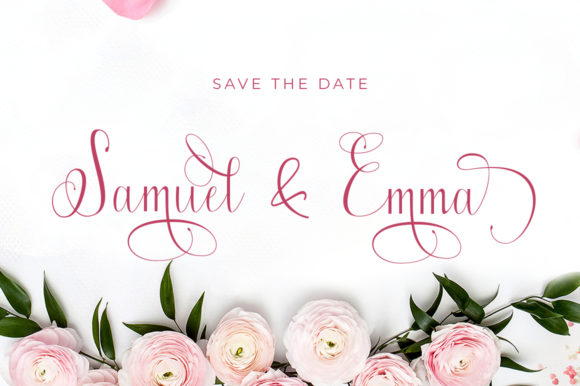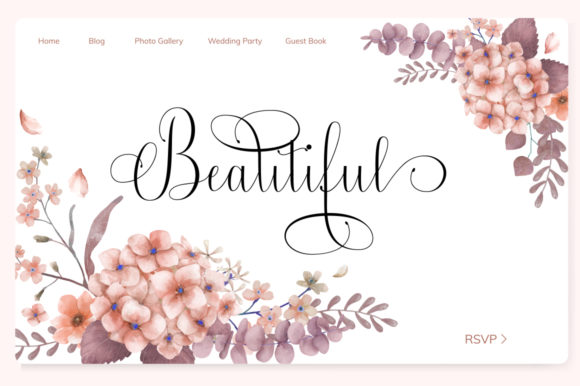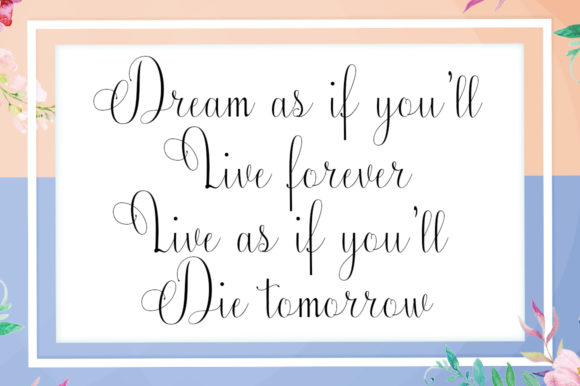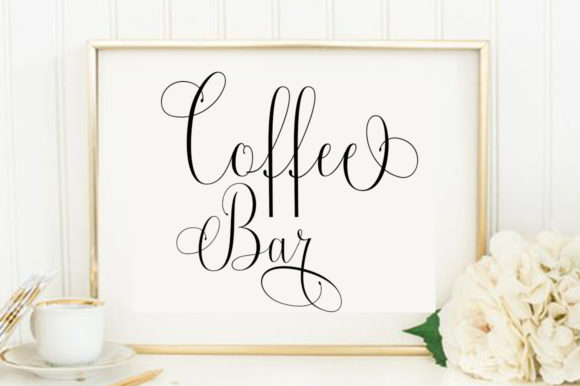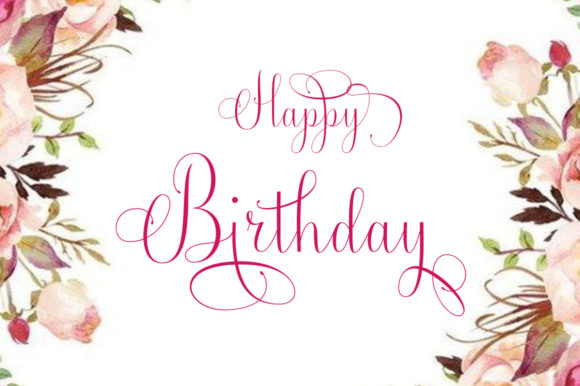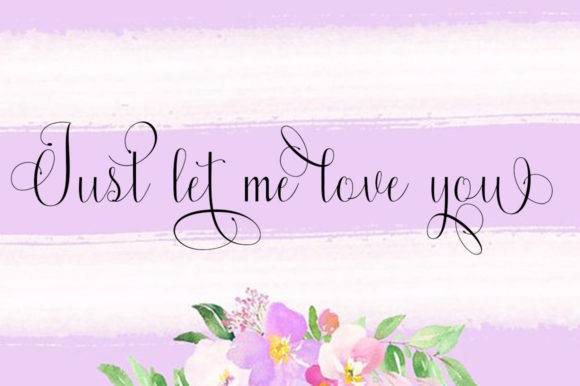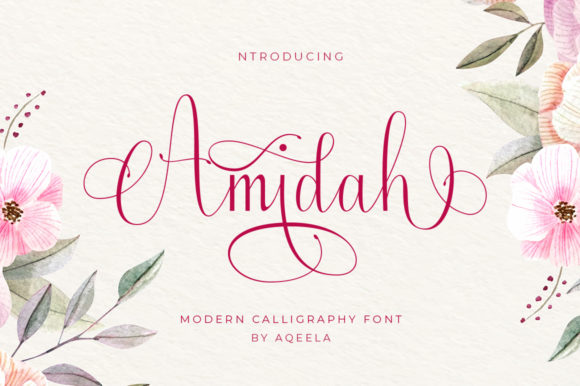
Introducing Amidah Font: The Sweet and Soft Hand-Lettered Calligraphy Font for Your Creative Projects
Are you looking for a font that can add a touch of sweetness and playfulness to your designs? Look no further than Amidah Font, a beautiful hand-lettered calligraphy font that is perfect for creating stunning Valentine’s Day art, wedding invitations, stationery, social media posts, and greeting cards.
What Makes Amidah Font Special?
Amidah Font is a sweet and soft hand-lettered calligraphy font that features playfully rounded characters, giving it a personal and playful feel. The font comes packed with gorgeous PUA encoded swashes, which allow you to add a decorative touch to your designs within seconds. With Amidah Font, you can create beautiful and unique designs that are sure to impress.
Perfect for Valentine’s Day and Wedding Designs
Valentine’s Day and wedding designs require a special touch, and Amidah Font is the perfect choice. The font’s playful and romantic feel makes it ideal for creating stunning Valentine’s Day art, wedding invitations, and stationery. You can use it to create beautiful and unique designs that will make your loved ones feel special.
Key Features of Amidah Font
- Hand-lettered calligraphy font: Amidah Font is a beautifully crafted hand-lettered calligraphy font that features unique and personal characters.
- Playfully rounded characters: The font’s playfully rounded characters give it a sweet and soft feel, making it perfect for creating playful and romantic designs.
- PUA encoded swashes: Amidah Font comes packed with gorgeous PUA encoded swashes, which allow you to add a decorative touch to your designs within seconds.
- Perfect for digital and print designs: Amidah Font is perfect for creating digital and print designs, including social media posts, greeting cards, and stationery.
Use Amidah Font for Your Creative Projects
Amidah Font is a versatile font that can be used for a variety of creative projects, including:
- Wedding invitations: Create beautiful and unique wedding invitations that will make your loved ones feel special.
- Valentine’s Day art: Create stunning Valentine’s Day art that will make your loved ones feel loved and appreciated.
- Stationery: Create beautiful stationery that will make your letters and notes stand out.
- Social media posts: Create eye-catching social media posts that will grab the attention of your followers.
- Greeting cards: Create cute and personalized greeting cards for special occasions.
Why Designers and Crafters Love Amidah Font
Designers and crafters love Amidah Font for its unique and personal feel. The font’s playfully rounded characters and gorgeous PUA encoded swashes make it perfect for creating beautiful and unique designs. With Amidah Font, you can add a touch of sweetness and playfulness to your designs, making them stand out from the crowd.
In conclusion, Amidah Font is a beautiful hand-lettered calligraphy font that is perfect for creating stunning Valentine’s Day art, wedding invitations, stationery, social media posts, and greeting cards. With its playfully rounded characters and gorgeous PUA encoded swashes, Amidah Font is a versatile font that can be used for a variety of creative projects. Whether you’re a designer or crafter, Amidah Font is a great addition to your font collection.